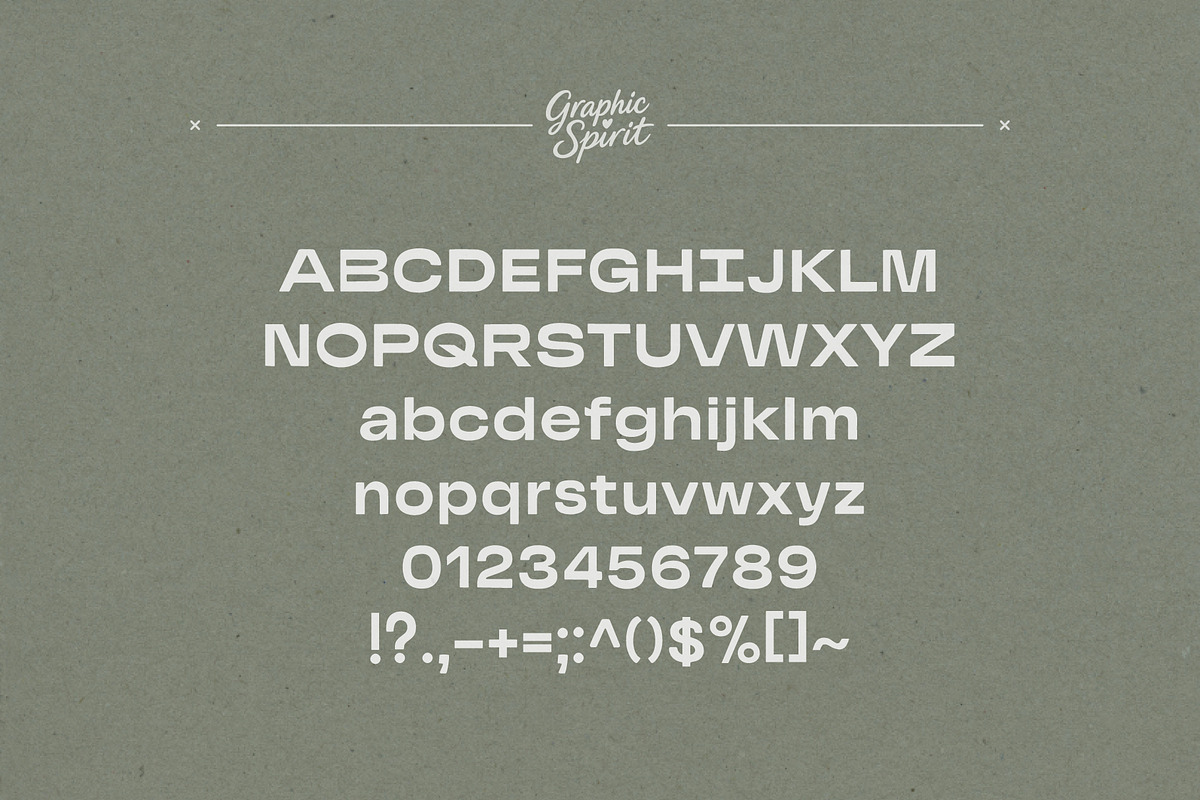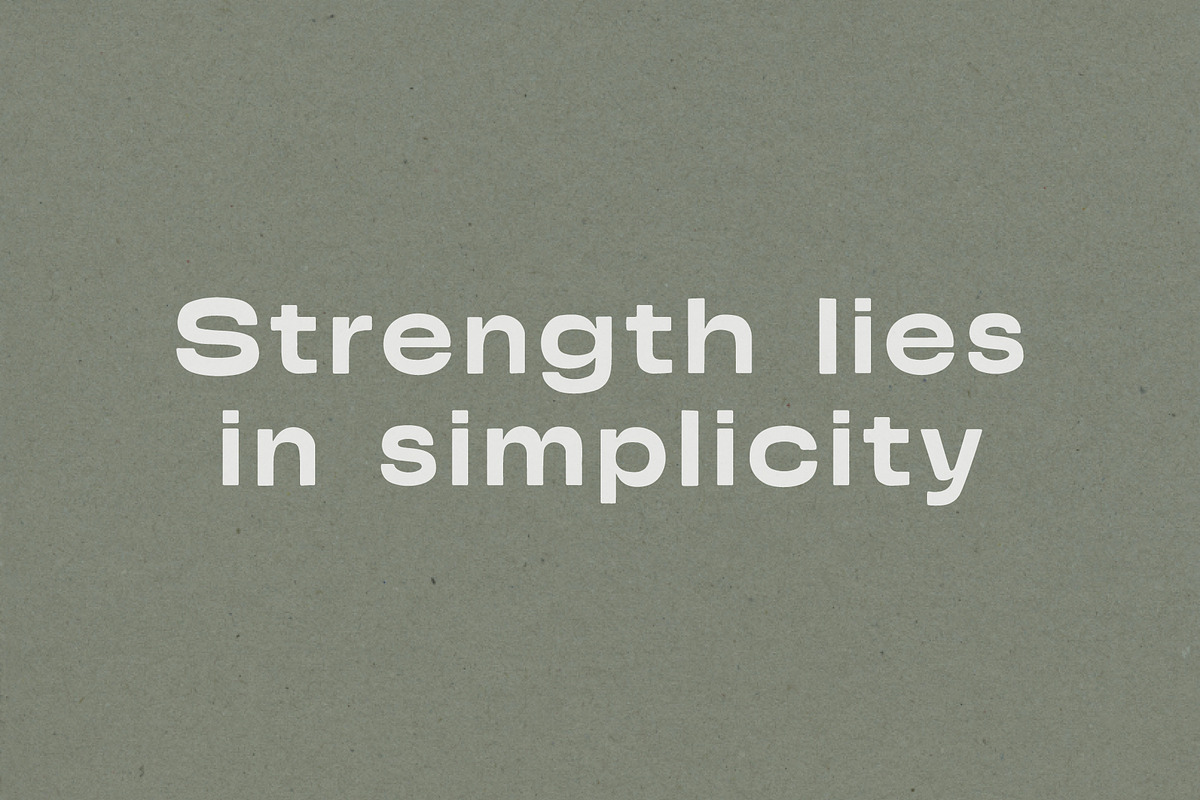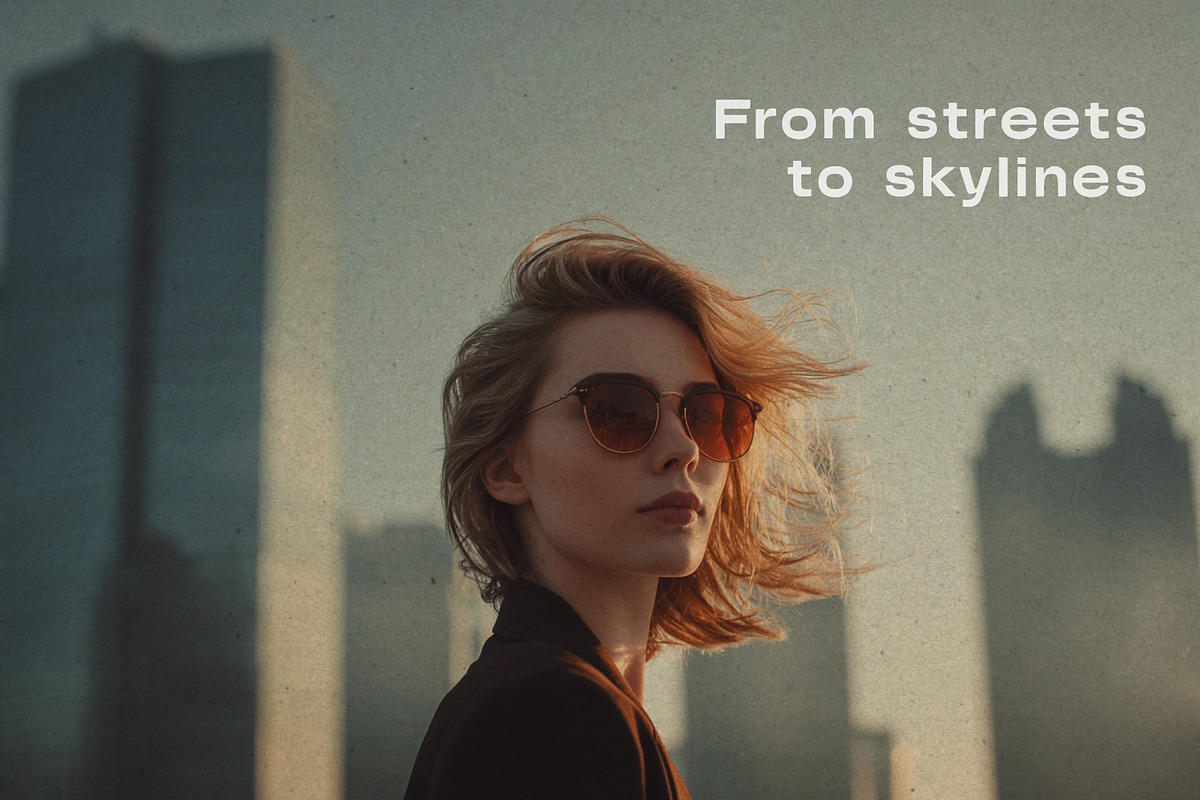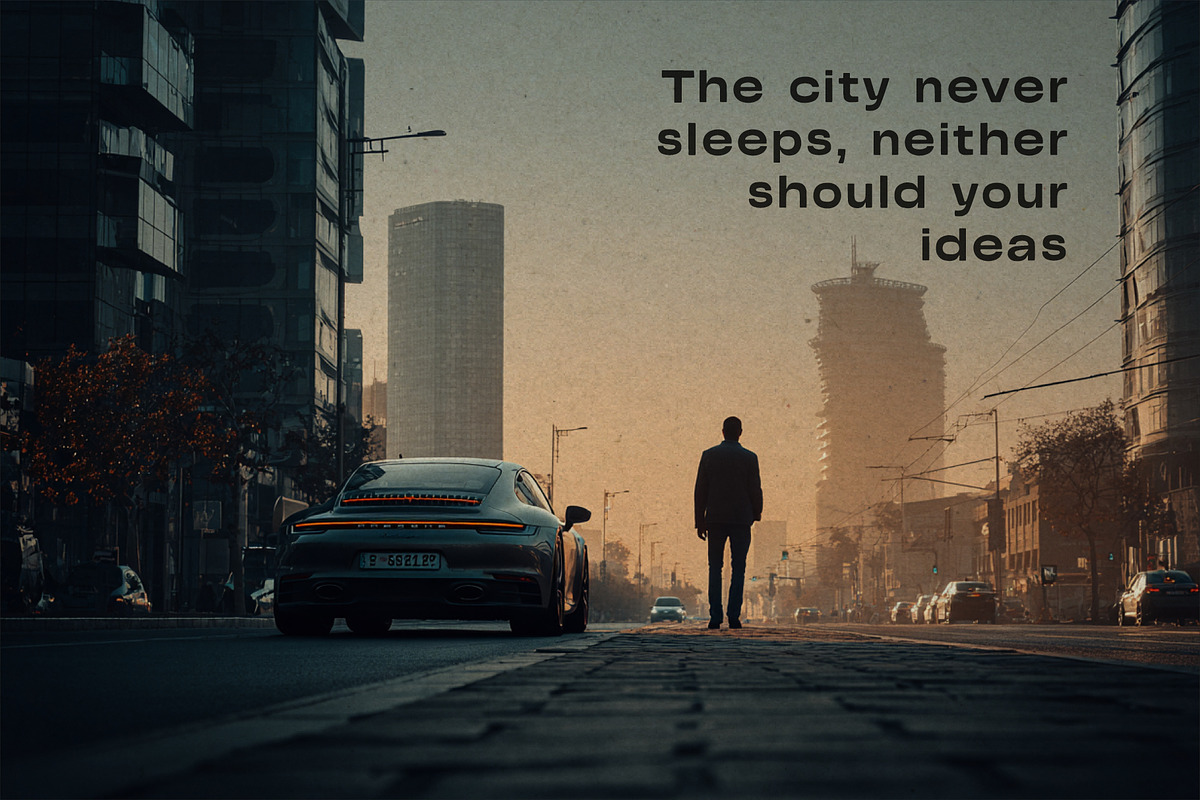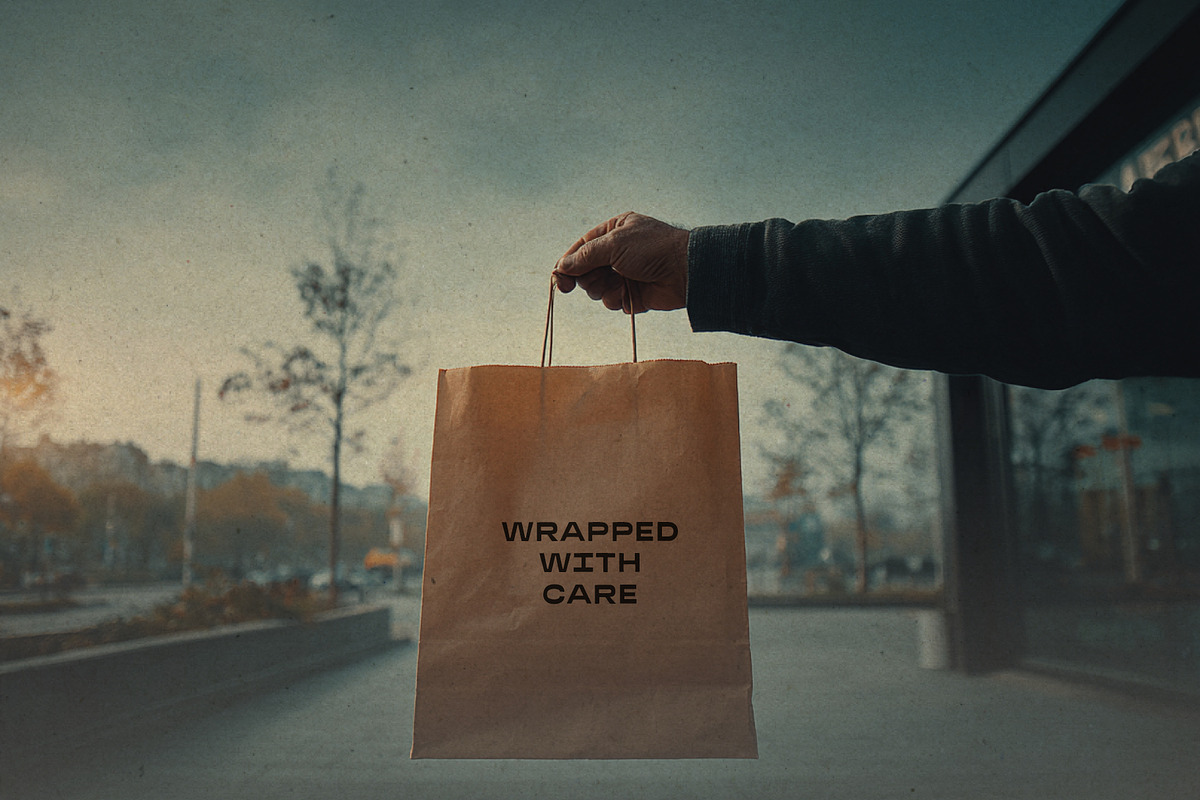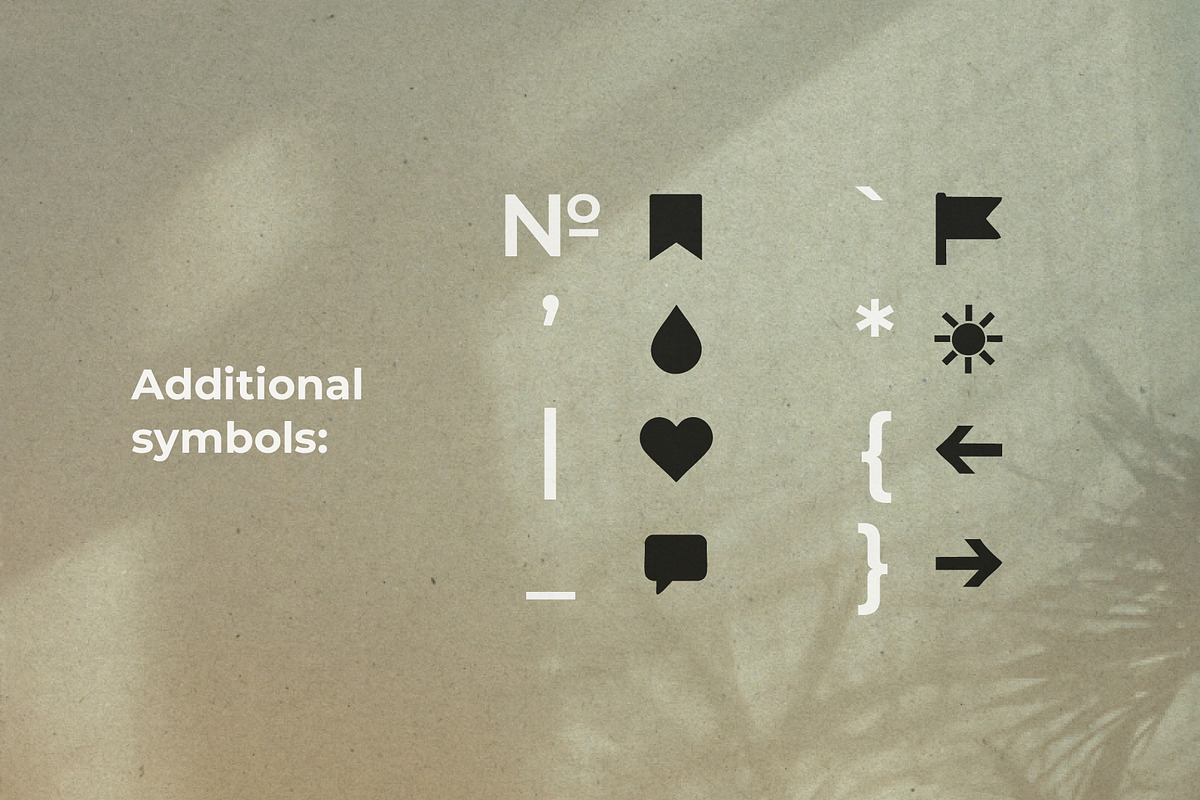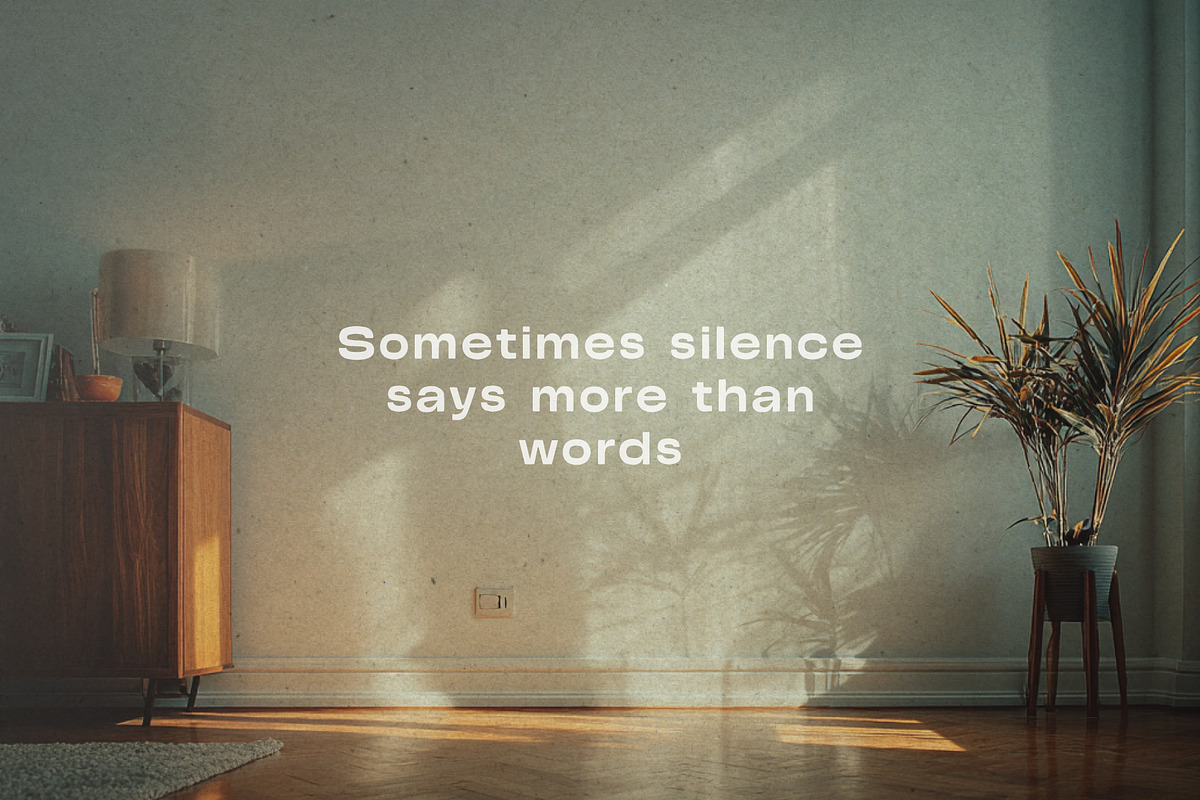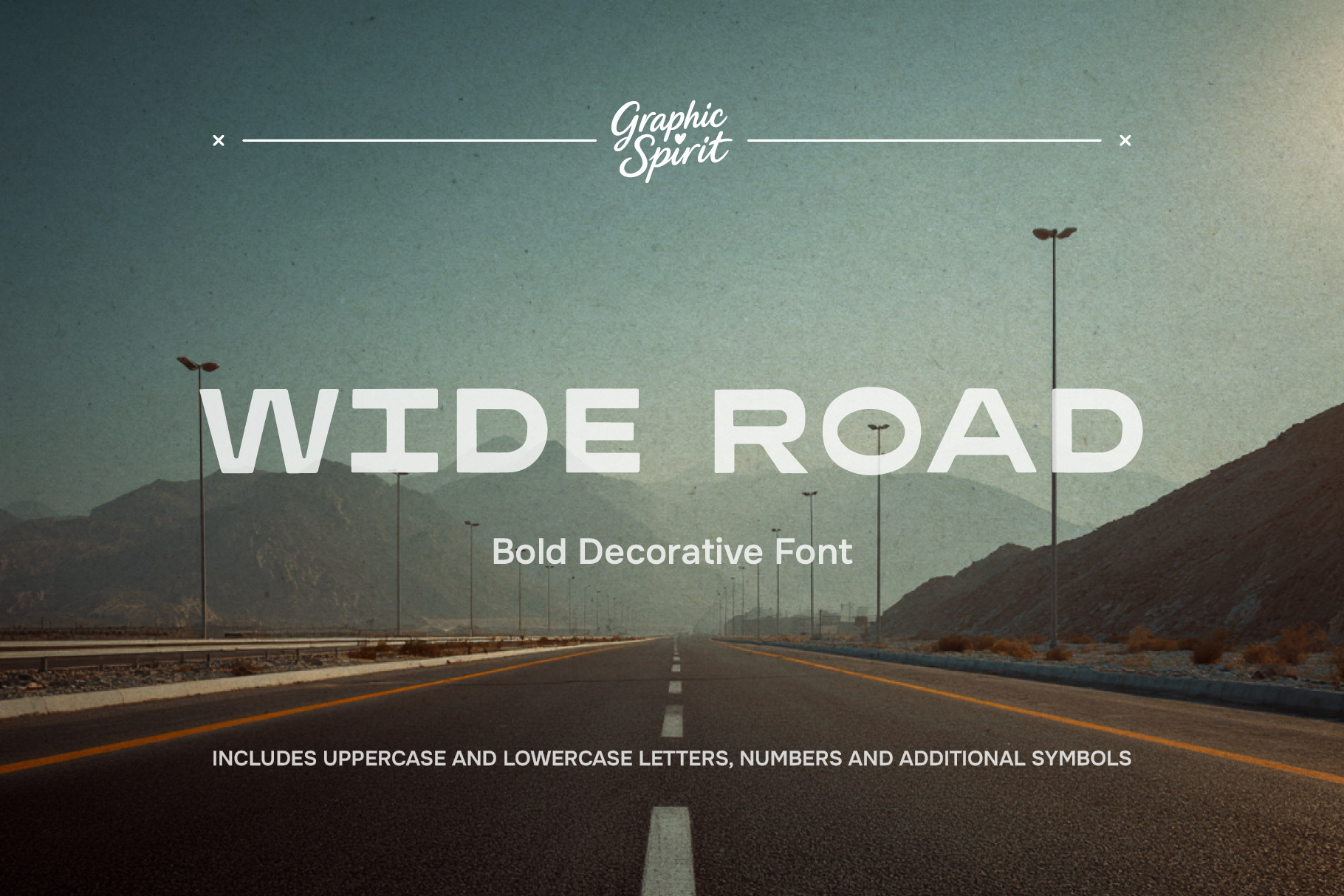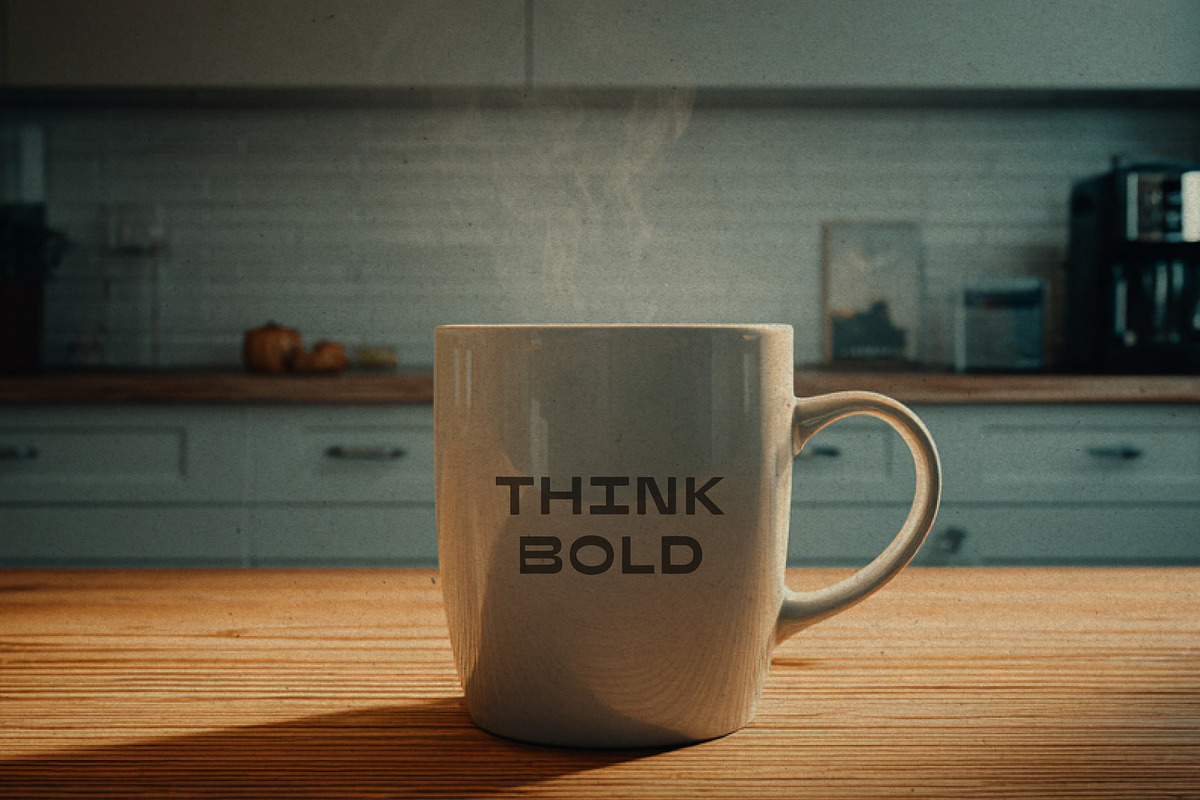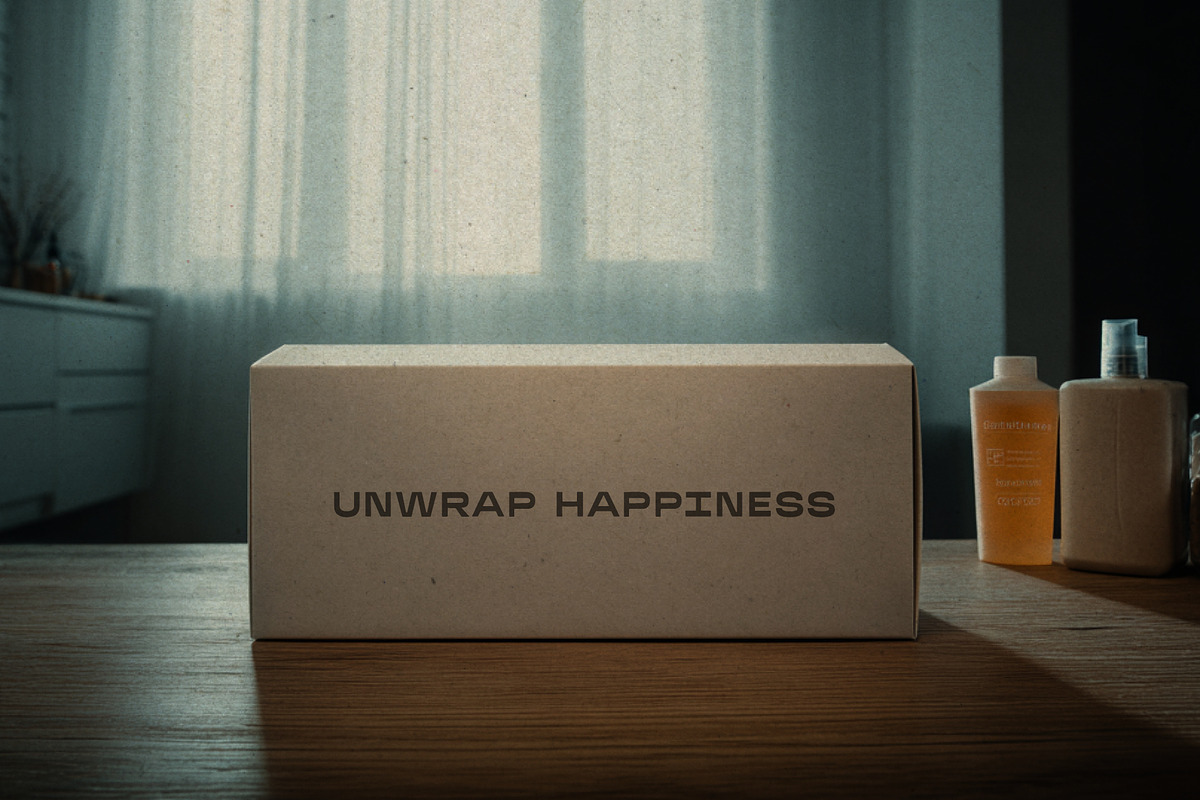
Wide Road Bold Decorative Font
🚀 Make a bold statement with Wide Road, a bold, decorative font designed for maximum impact. This font features a wide, crisp silhouette and a playful, slightly rounded character, making it ideal for creating eye-catching headlines, logos, posters, and social media images that are sure to be memorable and attention-grabbing.